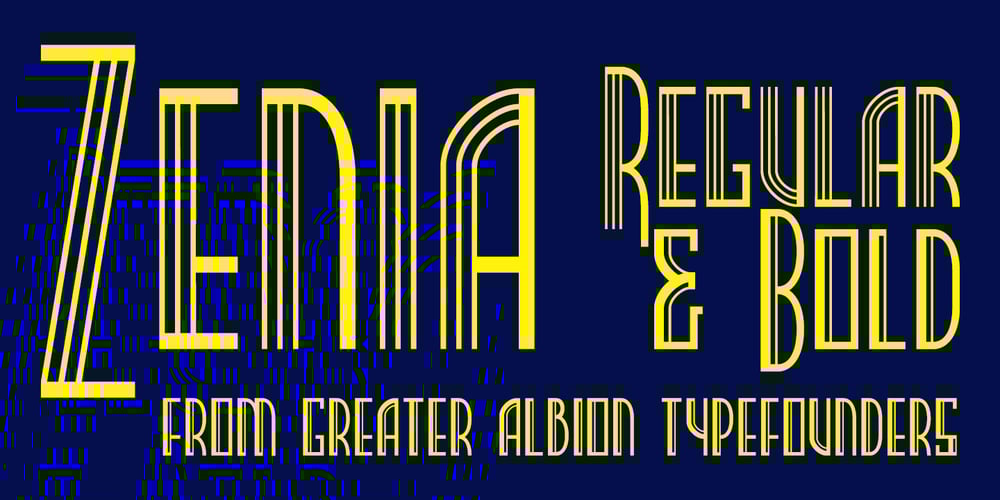
Zenia
Zenia font
Zenia Font Family was designed by Paul James Lloyd and published by Greater Albion Typefounders. Zenia contains 2 styles and family package options. Zenia, offered in regular and bold weights is a homage to the streamline era of the later 1930s. It’s a distinctive display family, glyphic yet still intuitive and easy to read. Use it anywhere you want that 30’s streamlined feel, or perhaps in science fiction inspired work particularly those that have a ‘past inspired future’ feel…